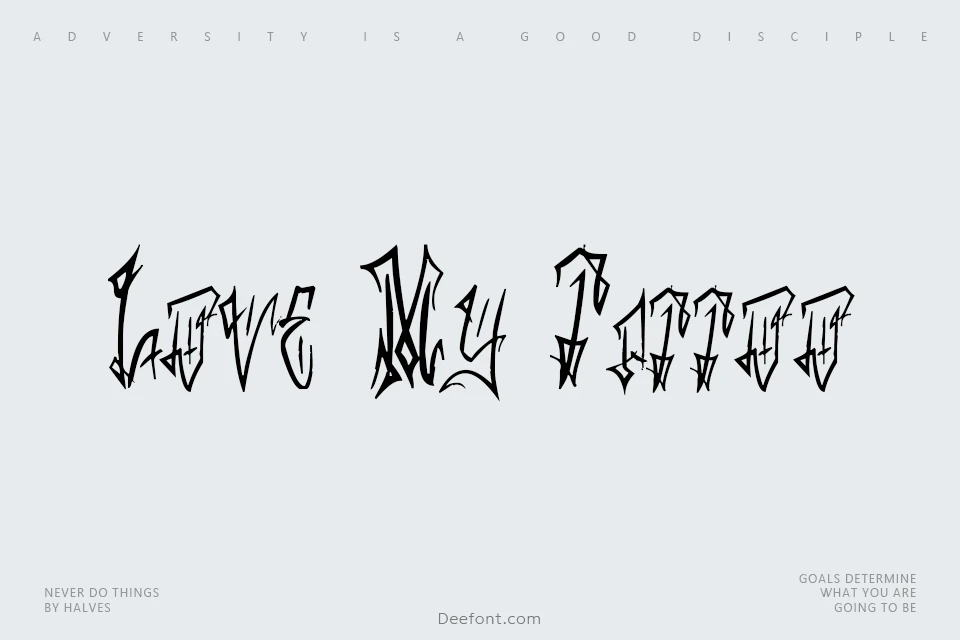
Love My Tattoo Font
Love My Tattoo is a distinctive handwritten font designed to capture the bold and artistic spirit of tattoo lettering. With its sharp, angular lines and intricate detailing, this font exudes an edgy and expressive aesthetic that makes it perfect for creating striking typographic designs. Its unique character shapes bring a personal and dynamic feel, ideal for tattoo-inspired artwork, logos, or custom graphics. The font balances readability with artistic flair, making it versatile for both decorative and statement uses. Whether for body art designs or creative projects, Love My Tattoo offers a stylish and impactful way to convey individuality and passion.